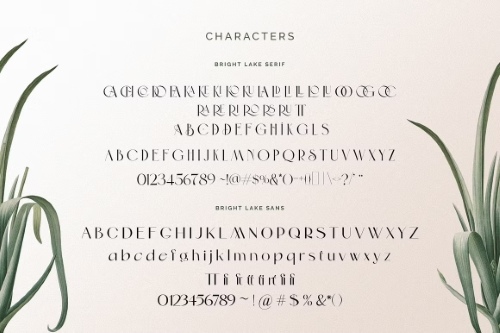
CM - The Bright Lake Font Duo + Logos 6317435
- The Bright Lake Font Duo is a unique font combo of serif and sans serif with stunning ligatures and alternates. Also, this font duo contains 18 free logos. With this open-type font duo, you can explore your creativity in an unlimited way. To recreate your brand with a unique font combo all you need is to mix and match from The Bright Lake Font Duo. This font duo has full of stylish ligatures, so that your writing with The Bright Lake Font Duo can stand out. Oh, the darling font duo has 18 free logos and those are fully editable with Adobe Photoshop or Adobe Illustrator (PSD, Ai, and EPS).